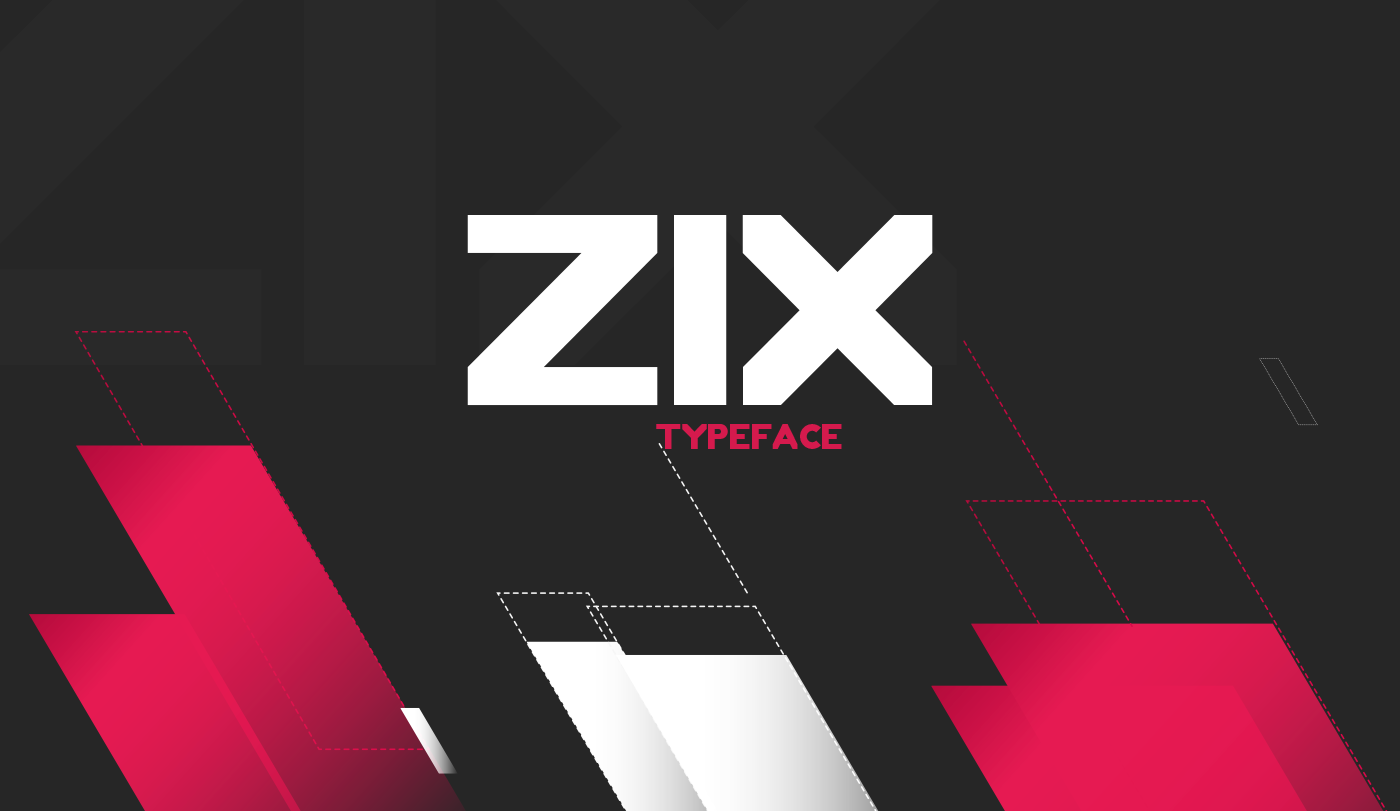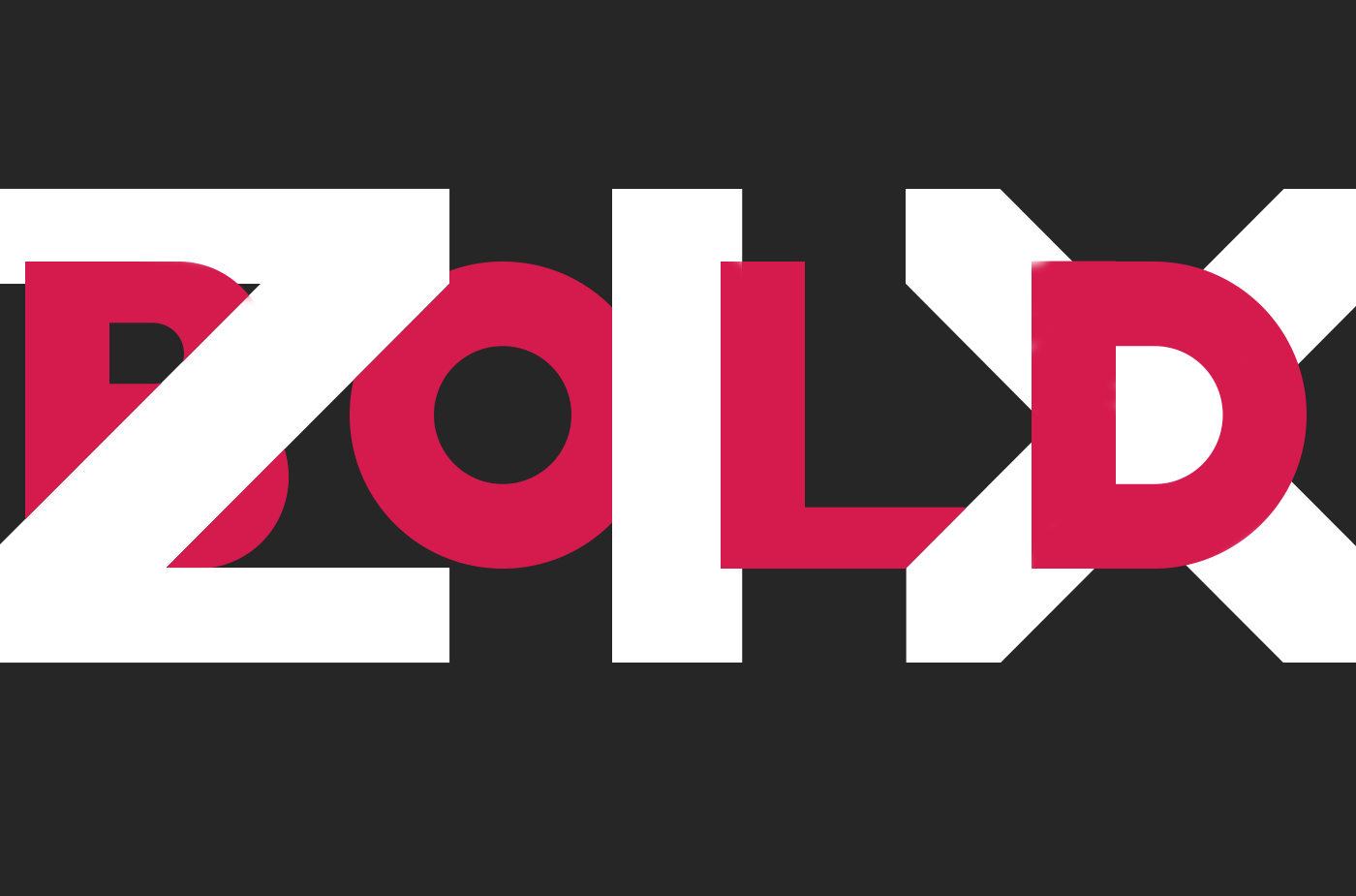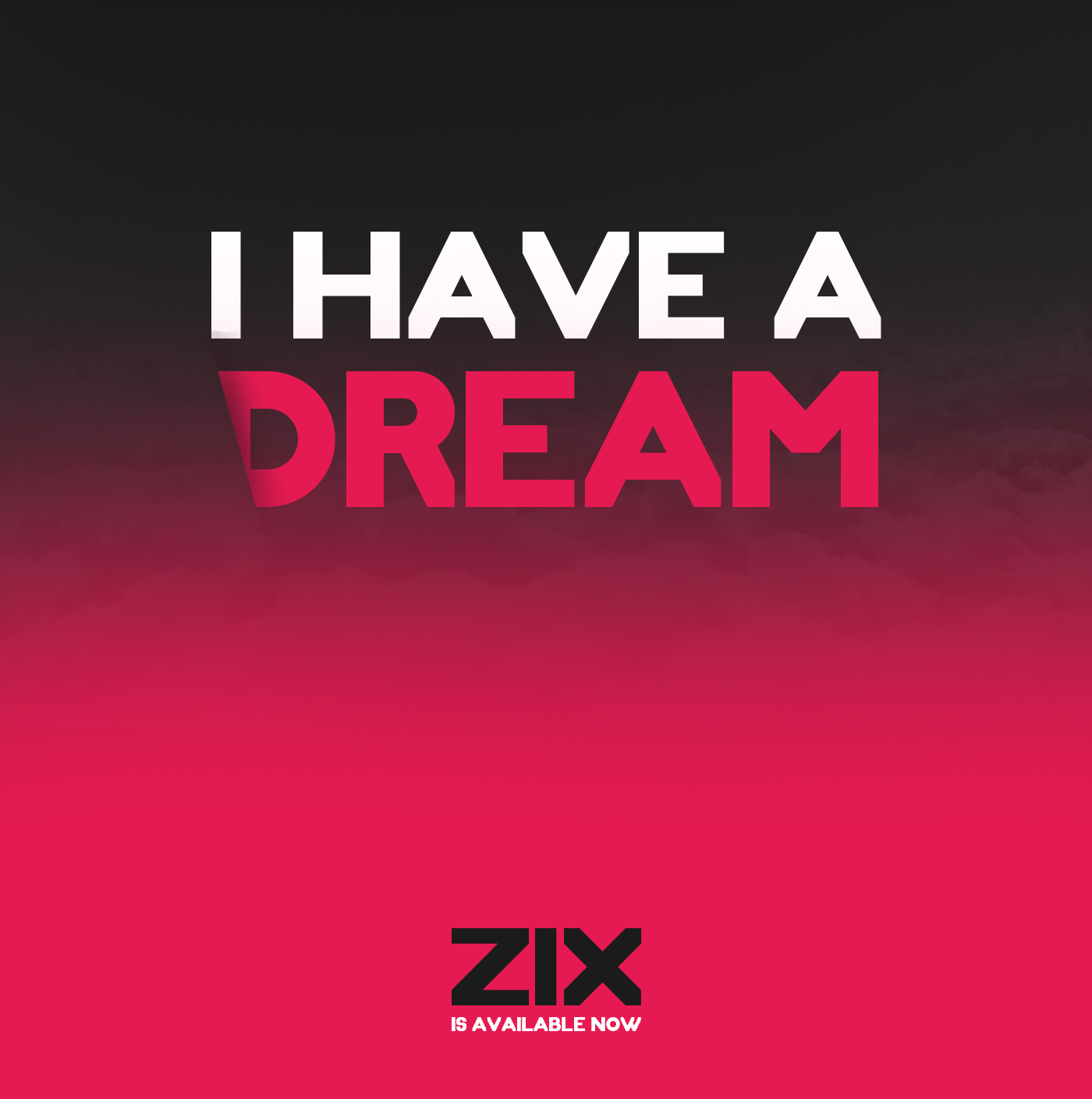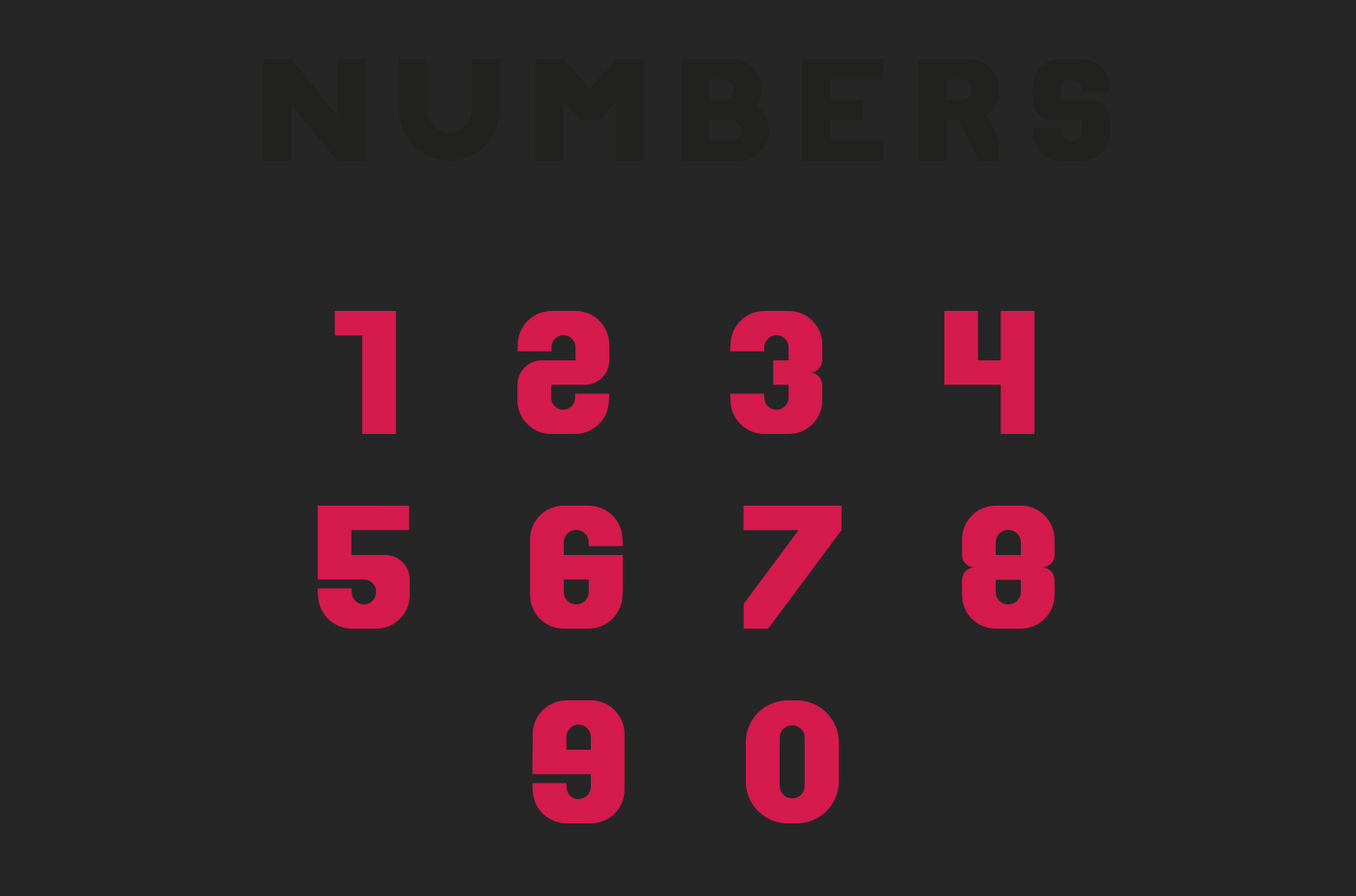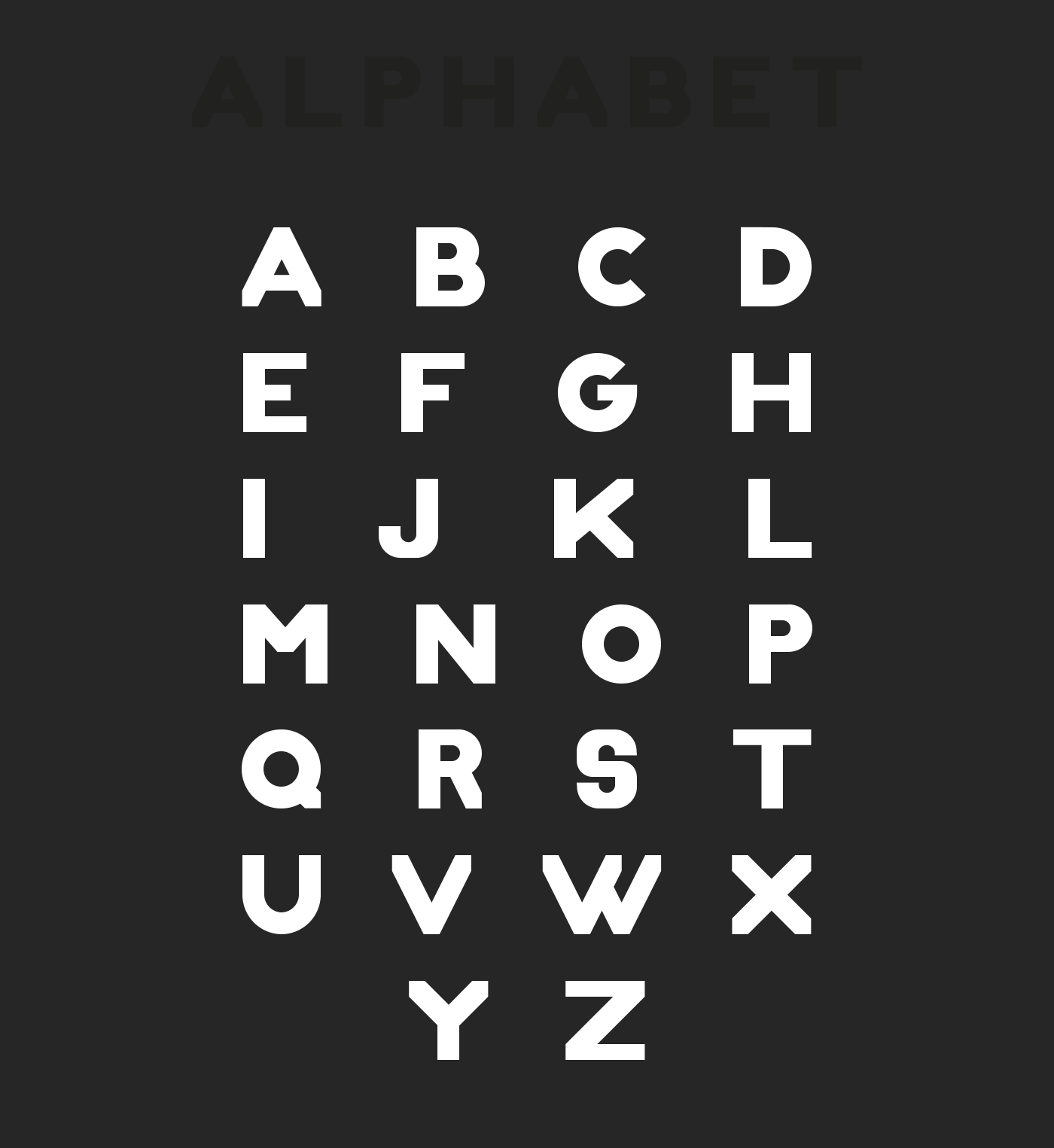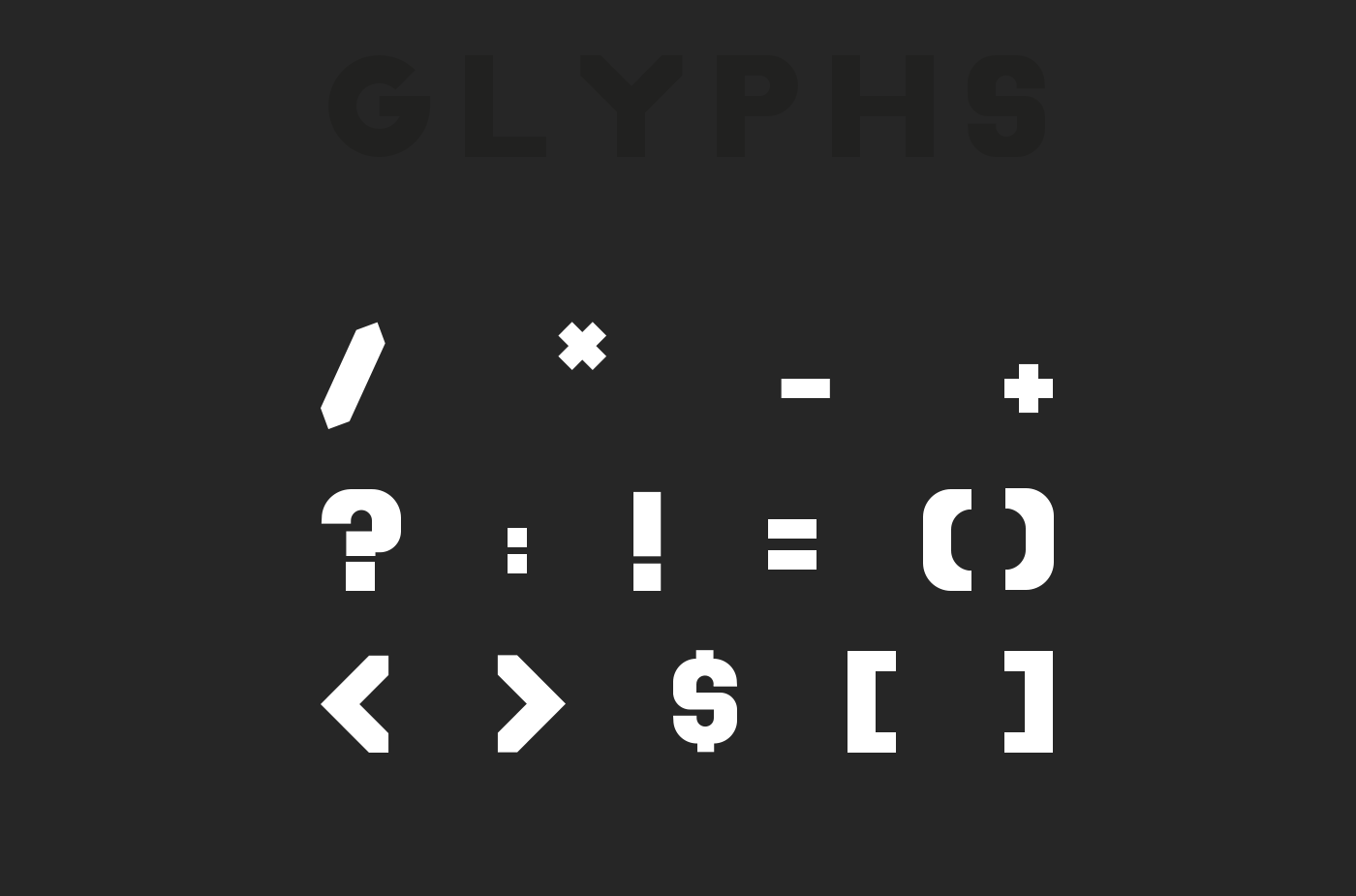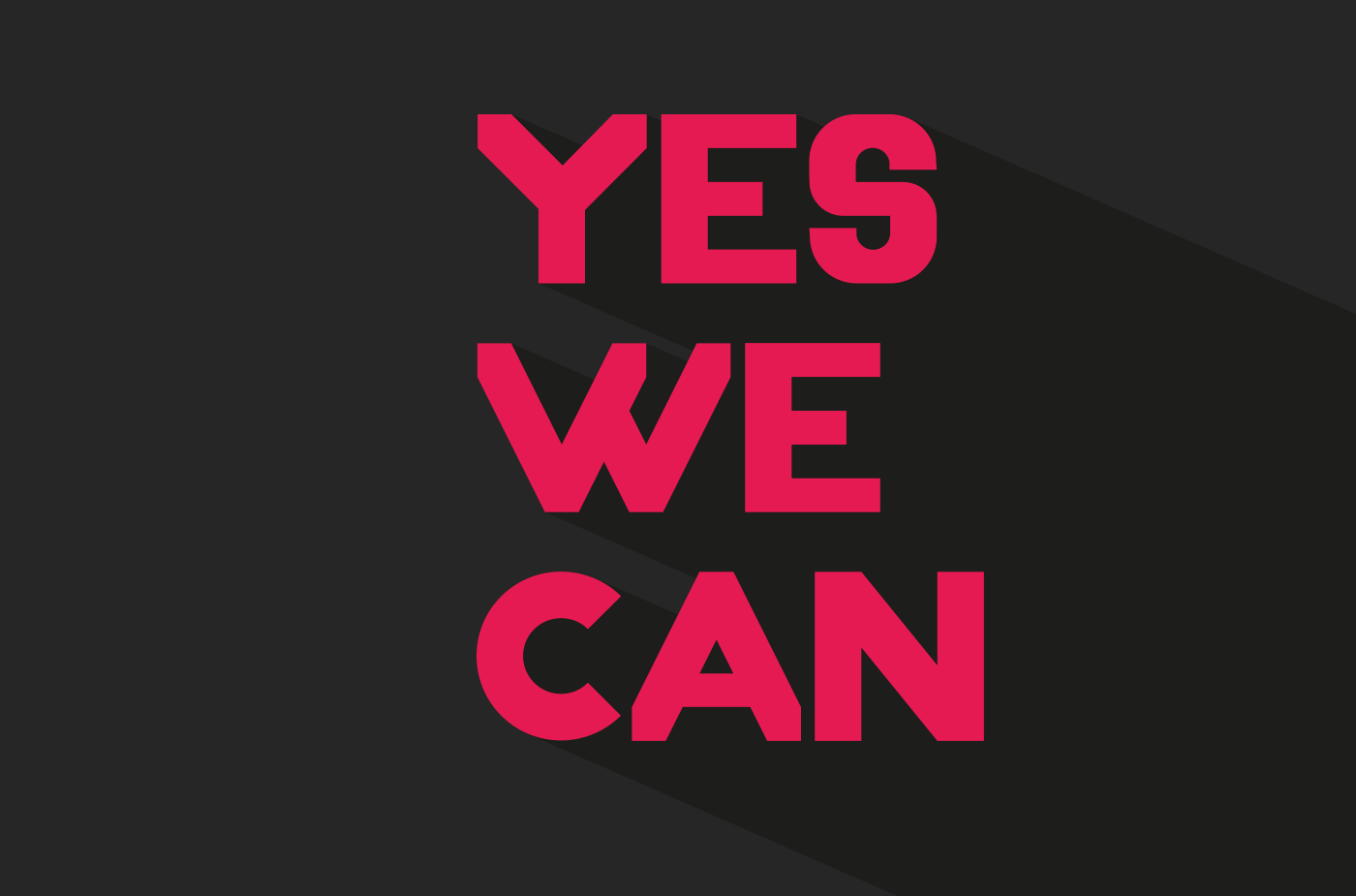
Zix Typeface
ZIX is a bold font with original design. It contains all caps letters, numerals and symbols. This font is great for logos, branding, headlines and a lot of other display purposes.